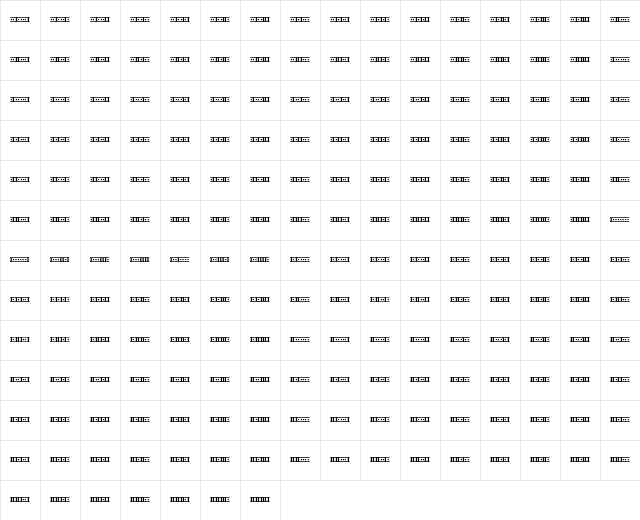
Binary X 01s BRK Regular
Design Context for Binary X 01s BRK Typeface
Binary X 01s BRK takes a measured approach to typography — its balanced proportions and neutral character make it a reliable workhorse for both digital and print work.